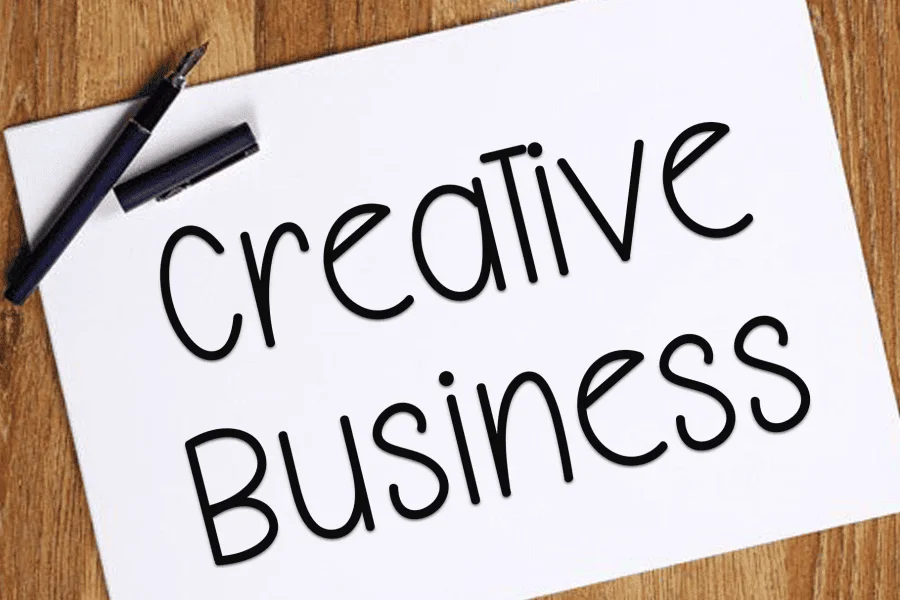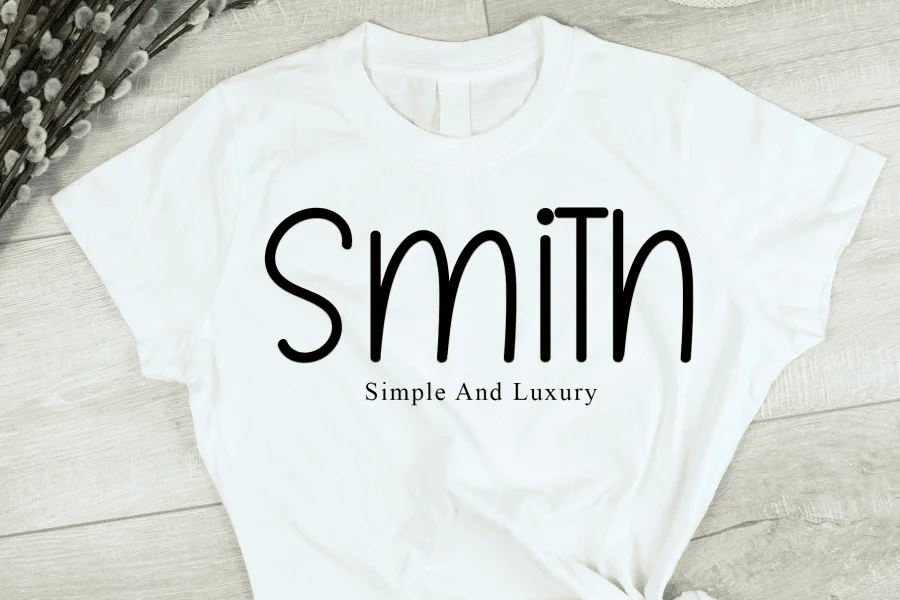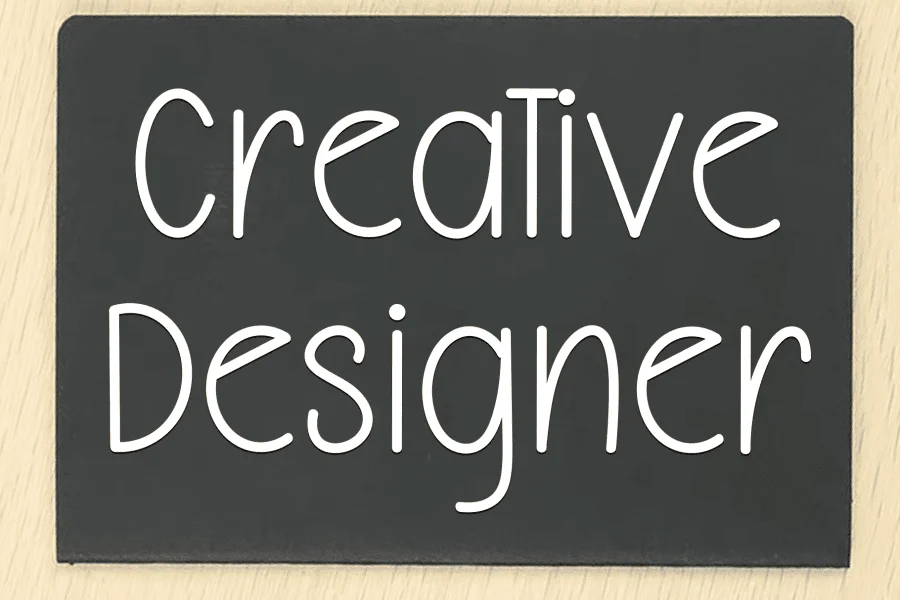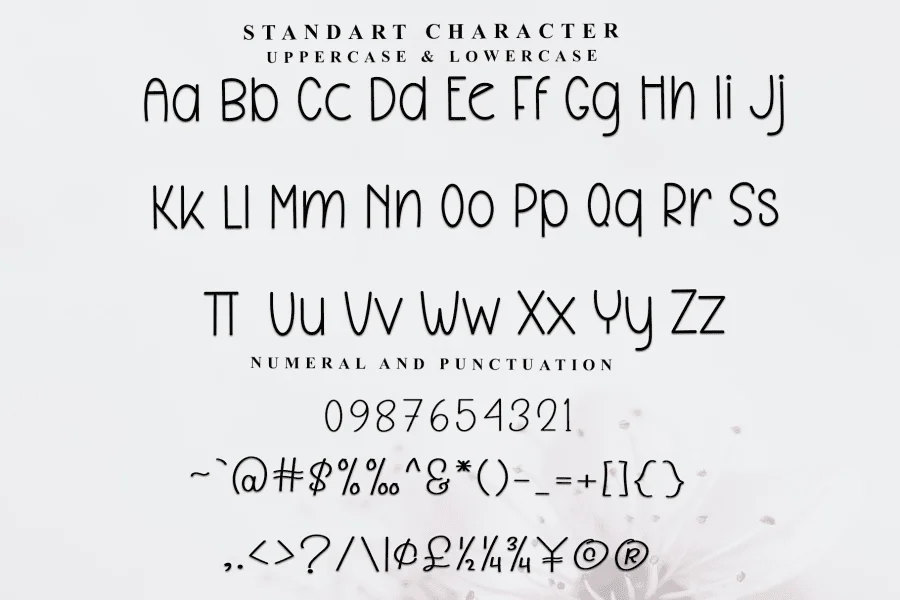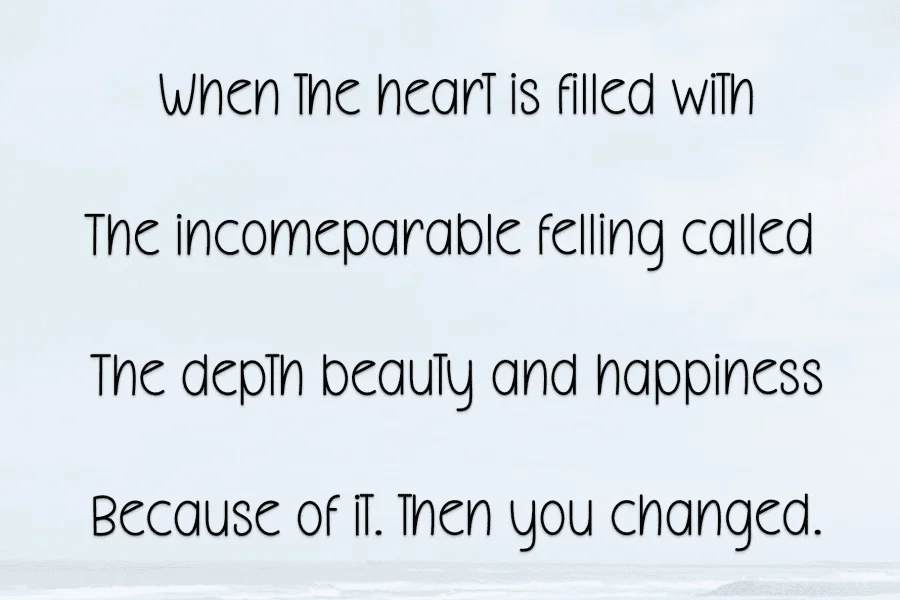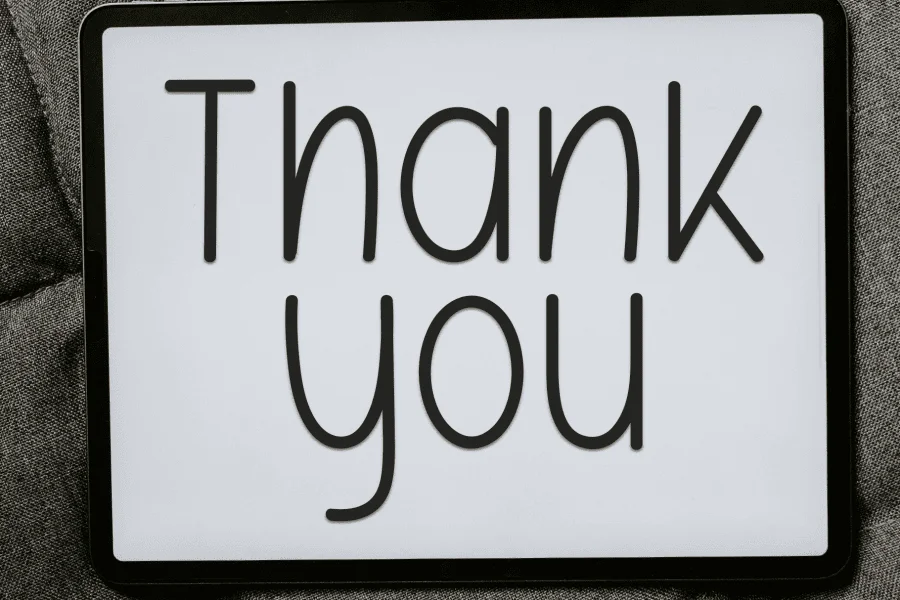
Beach Cottage is a simple sans serif typeface that channels a relaxed, hand-drawn aesthetic. Characterized by its tall, slender proportions and organic, slightly irregular lines, the typeface offers a casual yet refined rhythm. Its construction relies on gentle curves and consistent monoline stroke weights, creating a clean, airy texture that feels approachable and warm without sacrificing legibility.
This typeface is well-suited for creative branding projects, informal business stationery, and casual apparel design. Its friendly, handwritten quality makes it an excellent choice for lifestyle blogs, artisanal product packaging, and social media graphics where a personal, lighthearted touch is desired.